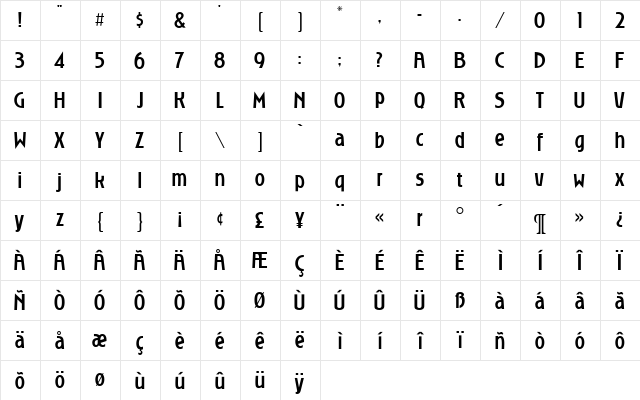
RoslynGothic Regular
Design Context for RoslynGothic Typeface
RoslynGothic has the quiet confidence of well-executed sans-serif typography: versatile, unobtrusive, and dependable at any size.
Font Pairing: Works well alongside a characterful serif or display font that can carry the expressive load while RoslynGothic handles the functional copy.
Pro Tip: Pair RoslynGothic with a display or serif font for headlines — its neutral character makes it an excellent supporting player in complex typographic systems.